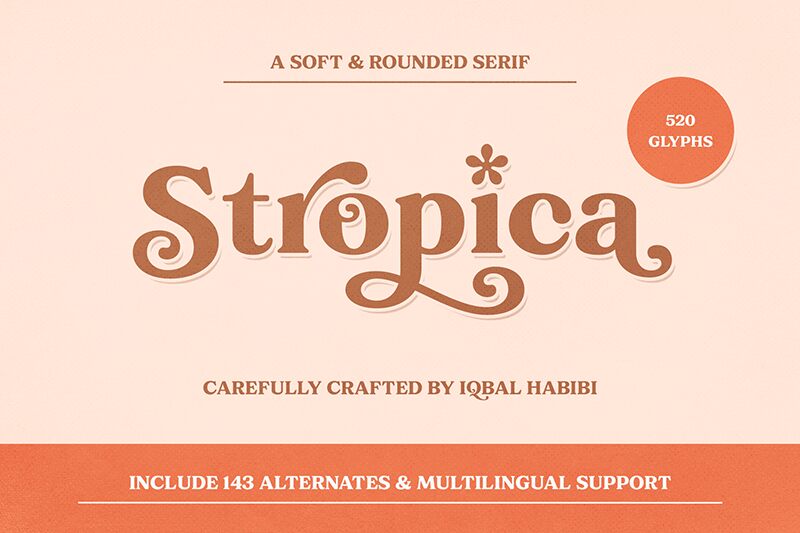
Stropica, crafted by Type Combo, is a serif font that stands out with its robust and assertive presence. Its bold character exudes confidence and stability, making it a striking choice for those who wish to make an impactful statement. The elegance of the serifs adds a touch of sophistication, giving Stropica a classic feel with a modern twist.
Ideal for headlines, branding, and advertising where strength and readability are key, Stropica's commanding nature also lends itself beautifully to editorial design. This font promises to captivate audiences with its blend of traditional charm and contemporary boldness.